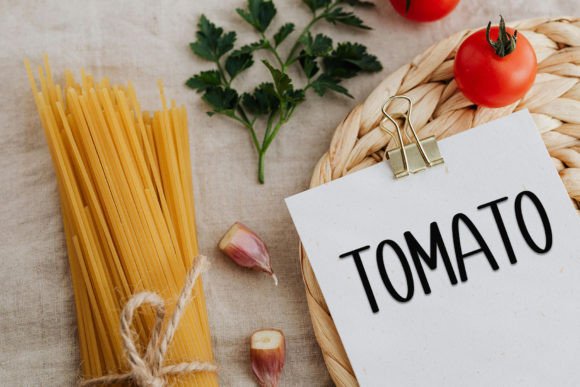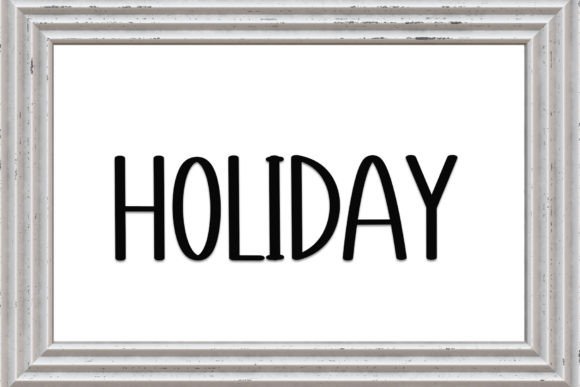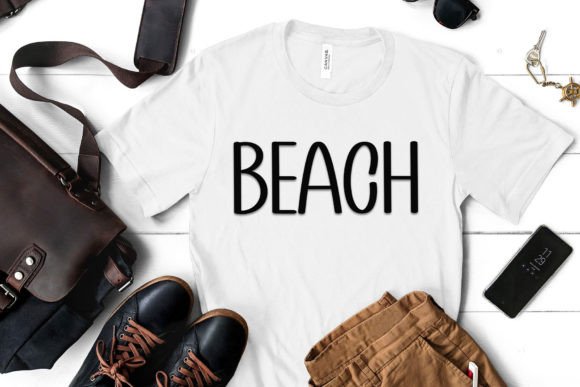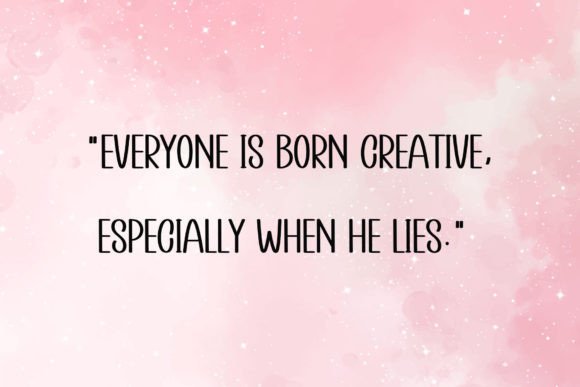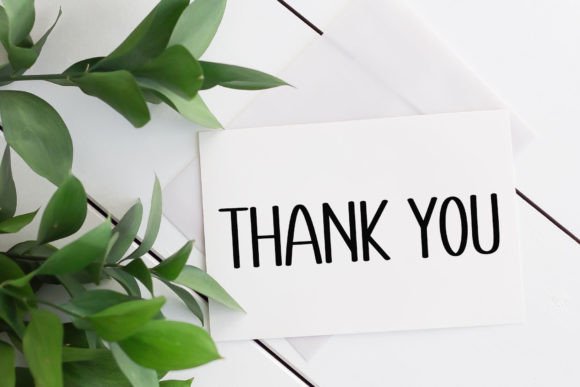
Introducing Autumn Story Font: The Perfect Holiday Companion for Designers and Crafters
As the leaves change colors and the air grows crisp, our thoughts turn to the holiday season and all its joys. For designers and crafters, this time of year brings a flurry of creative projects, from greeting cards and gift labels to festive decorations and holiday-themed crafts. To help you add a touch of magic to your designs, we’re excited to introduce the Autumn Story Font – a festive and happy typeface that captures the spirit of the season.
A Festive and Happy Typeface
Autumn Story Font is a unique and charming typeface that embodies the warmth and cheer of the holiday season. Its decorative elements and distinctive flair make it the perfect choice for adding a touch of nostalgia and whimsy to your designs. Whether you’re creating greeting cards, gift labels, or holiday-themed projects, this font is sure to bring a smile to your face and a twinkle to your designs.
Autumn Story Font is specifically designed with holiday projects in mind. Its festive and cheerful atmosphere makes it ideal for:
- Greeting cards: Add a personal touch to your holiday cards with this charming font.
- Gift labels: Make your gifts stand out with beautifully designed labels featuring Autumn Story Font.
- Holiday-themed projects: From decorations to crafts, this font is perfect for adding a touch of holiday cheer to your projects.
One of the best features of Autumn Story Font is that it’s PUA (Private Use Area) coded. This means that you can access all the amazing glyphs and ligatures easily, without any hassle. With PUA coding, you can:
- Easily access alternate characters and glyphs.
- Mix and match different elements to create unique designs.
- Save time and effort by having all the characters you need at your fingertips.
What Makes Autumn Story Font Special?
So, what sets Autumn Story Font apart from other typefaces? Here are just a few of its special features:
- Unique and decorative elements: Add a touch of charm to your designs with this font’s distinctive flair.
- Festive and cheerful atmosphere: Perfect for holiday projects, this font brings a smile to your face and a twinkle to your designs.
- PUA coded: Easily access all the glyphs and ligatures you need to create stunning designs.
- Nostalgic and whimsical: This font is sure to evoke memories of holidays past and add a touch of magic to your designs.
Tips for Using Autumn Story Font
To get the most out of Autumn Story Font, here are a few tips:
- Experiment with different sizes and colors to add visual interest to your designs.
- Mix and match different glyphs and ligatures to create unique and eye-catching designs.
- Use Autumn Story Font in combination with other fonts to create stunning contrast and visual hierarchy.
- Don’t be afraid to get creative and try new things – this font is perfect for pushing the boundaries of design.
Whether you’re a seasoned designer or a crafter looking for a special touch, Autumn Story Font is the perfect choice for adding a touch of charm and whimsy to your holiday projects. So go ahead, get creative, and make this holiday season one to remember with Autumn Story Font.